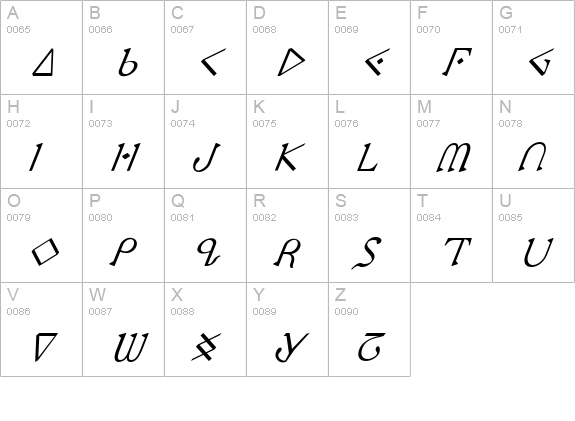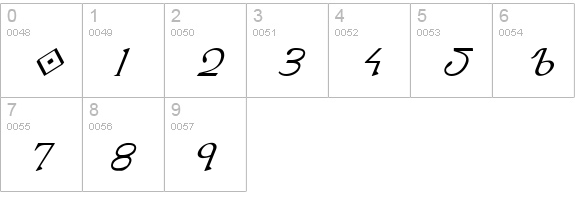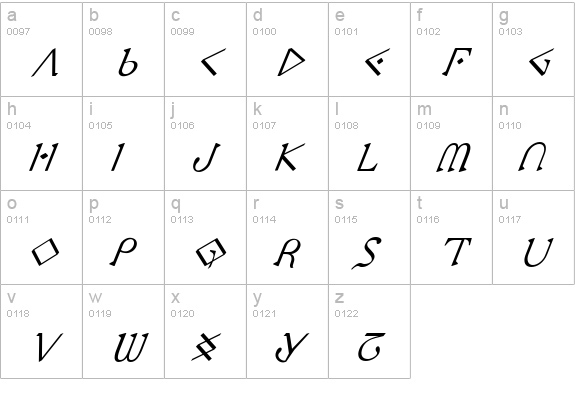
Presley Press Italic is a distinctive, italic variant in the Presley typeface family \xE2\x80\x94 well suited to design and typography projects.
Presley Press Italic font is a stylish and elegant typeface that exudes sophistication and charm. Its sleek and modern design makes it perfect for a wide range of creative projects, from branding to editorial design. The italic style adds a touch of flair and uniqueness to any text, making it stand out from the crowd. What sets Presley Press Italic font apart is that it is available for free download at FontsMarket.com. This means that you can easily access this beautiful font without any cost, making it a valuable addition to your font collection. Whether you're a designer, student, or hobbyist, having access to high-quality fonts like Presley Press Italic can elevate your projects and help you achieve professional results. Don't miss out on this fantastic opportunity to enhance your designs with the beauty and versatility of Presley Press Italic font. Download it for free today at FontsMarket.com!